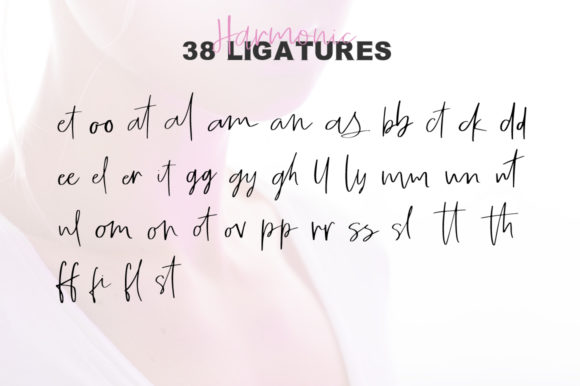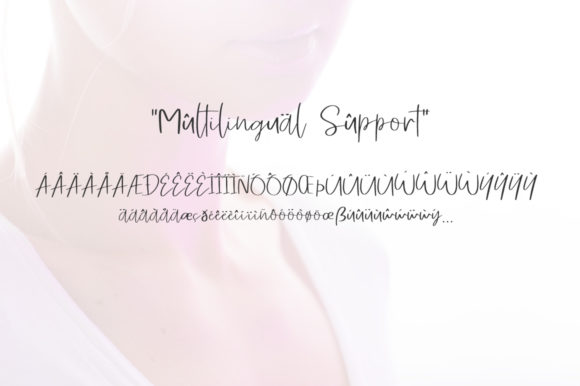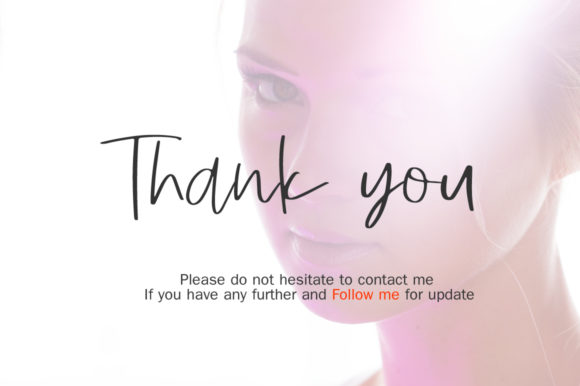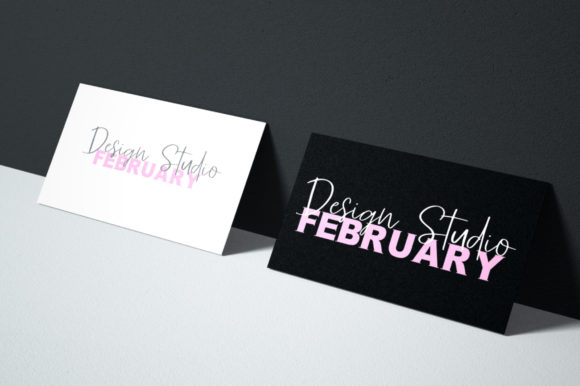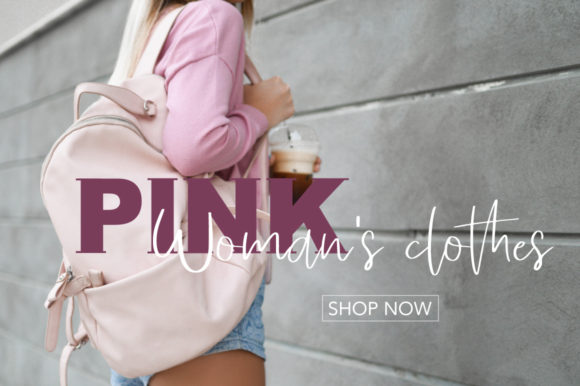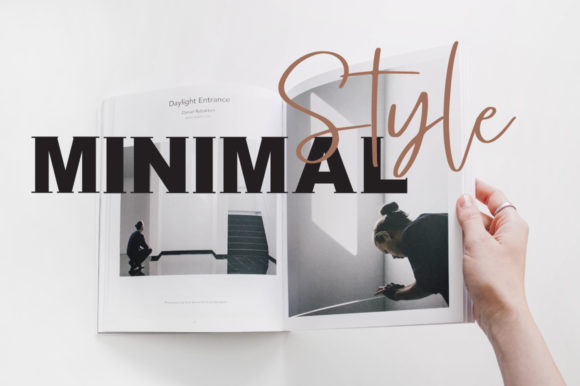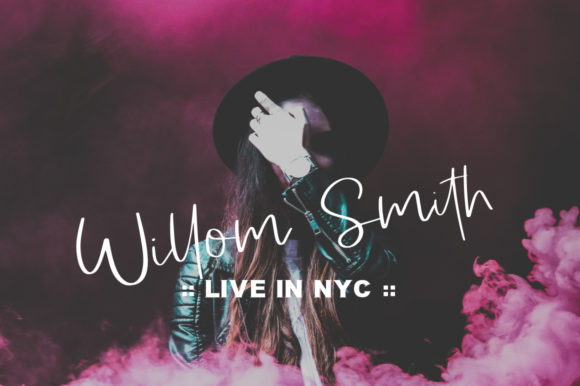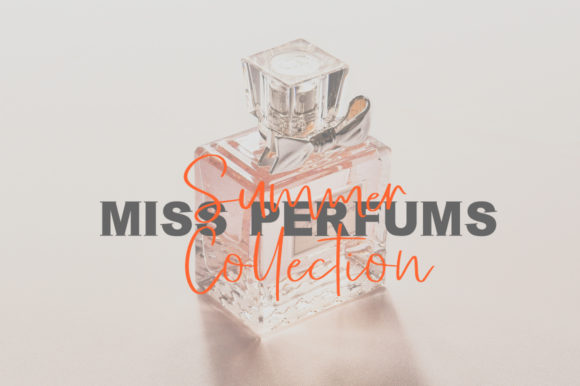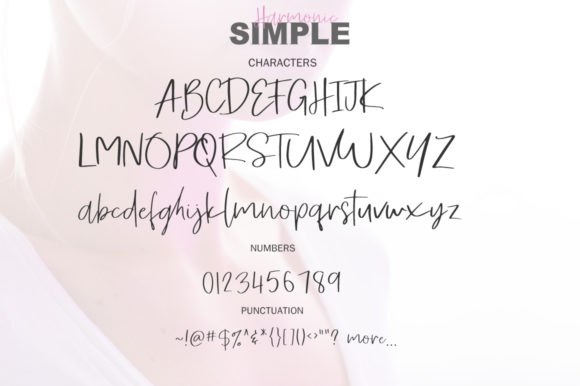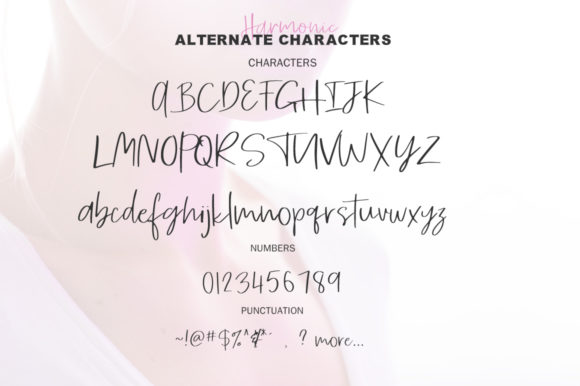
Simple Harmonic Duo Font
About Simple Harmonic Duo Font
The Simple Harmonic is a beautiful script duo. It comes with an elegant script, and striking sans serif font.
It’s perfect for making your set of invitations, branding, blog posts, and much more!